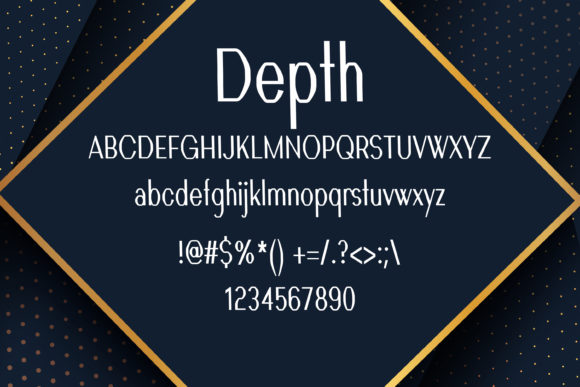
Introducing Depth Font: The Ultimate Sans Serif for Modern Designs
What is Depth Font?
Depth Font is a casual and modern sans serif font that has taken the design world by storm. Its clean lines, simple shapes, and friendly vibe make it perfect for a wide range of projects, from branding and advertising to packaging and digital media. Whether you’re a professional designer or a DIY enthusiast, Depth Font is an excellent choice for anyone looking to add a touch of modernity to their work.
Features of Depth Font
- Versatility: Depth Font is incredibly versatile, making it suitable for a wide range of projects and applications.
- Modern style: Its clean lines and simple shapes give Depth Font a modern and fresh look that’s perfect for contemporary designs.
- Easy to read: The font’s clear and legible design makes it easy to read, even at small sizes.
- Highly customizable: Depth Font can be easily customized to fit your brand’s style and personality.
Benefits of Using Depth Font
- Unique and modern look: Depth Font’s modern style will help your designs stand out from the crowd and give them a fresh, contemporary look.
- Improved readability: The font’s clear design ensures that your text is easy to read, making it perfect for body text and captions.
- Flexibility: Depth Font can be used in a variety of contexts, from digital media to print materials.
- Time-saving: With Depth Font, you can create professional-looking designs quickly and easily, saving you time and effort.
Using Depth Font in Your Designs
- Branding and logos: Use Depth Font to create a modern and memorable logo for your brand.
- Social media graphics: Create eye-catching social media graphics, such as Facebook posts and Instagram stories, using Depth Font.
- Packaging design: Use Depth Font to create labels, packaging, and other materials for your products.
- Web design: Depth Font is perfect for web design, including website headers, body text, and captions.
Tips and Tricks for Working with Depth Font
- Experiment with different sizes: Depth Font looks great at a variety of sizes, so don’t be afraid to experiment and find the perfect size for your design.
- Pair it with other fonts: Depth Font pairs well with other sans serif fonts, as well as script fonts and serif fonts.
- Use it consistently: Use Depth Font consistently throughout your design to create a cohesive look.
In conclusion, Depth Font is an incredibly versatile and modern sans serif font that’s perfect for designers and crafters looking to add a touch of modernity to their work. With its clean lines, simple shapes, and friendly vibe, Depth Font is suitable for a wide range of projects and applications. Whether you’re a professional designer or a DIY enthusiast, Depth Font is an excellent choice for anyone looking to create spectacular designs.